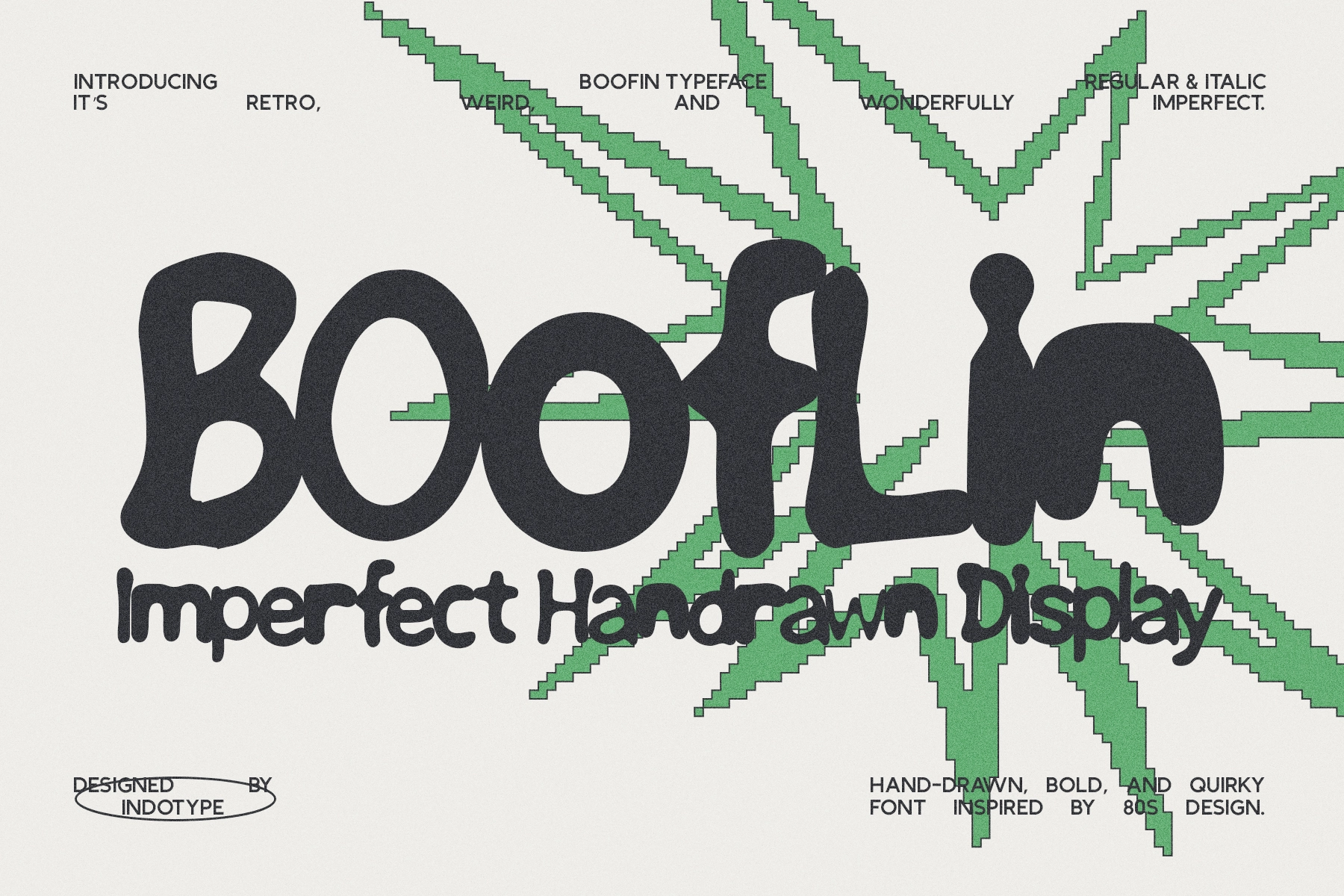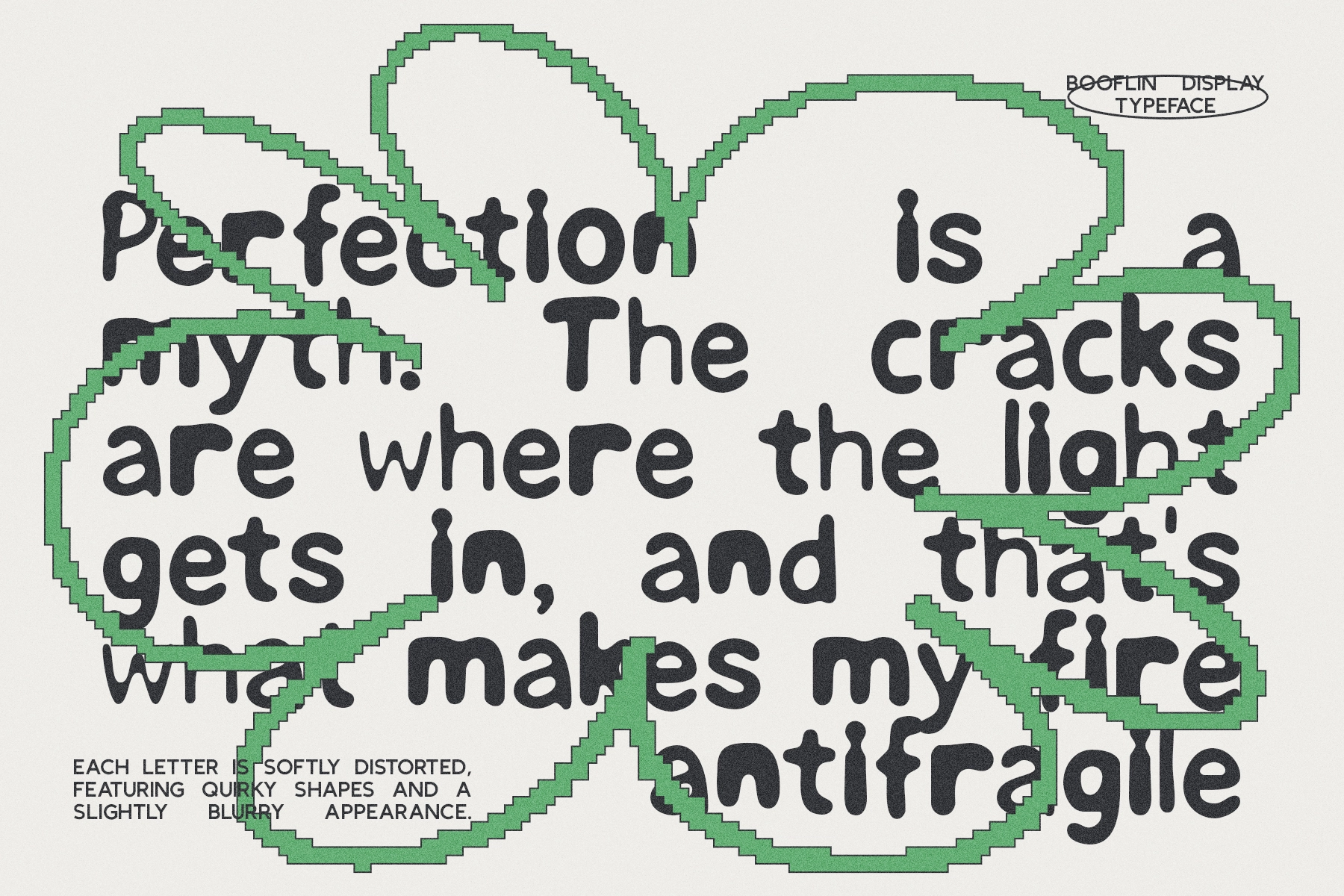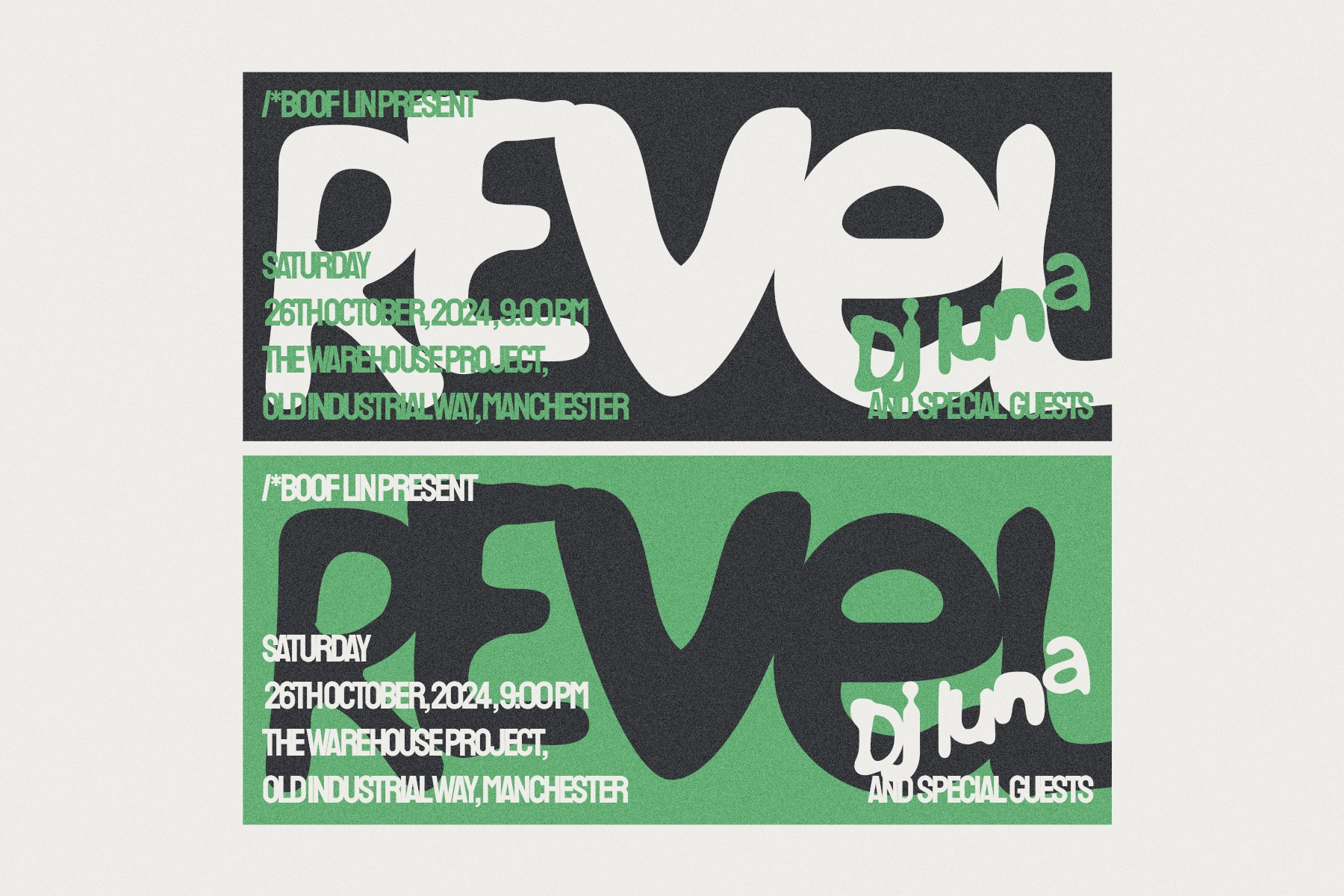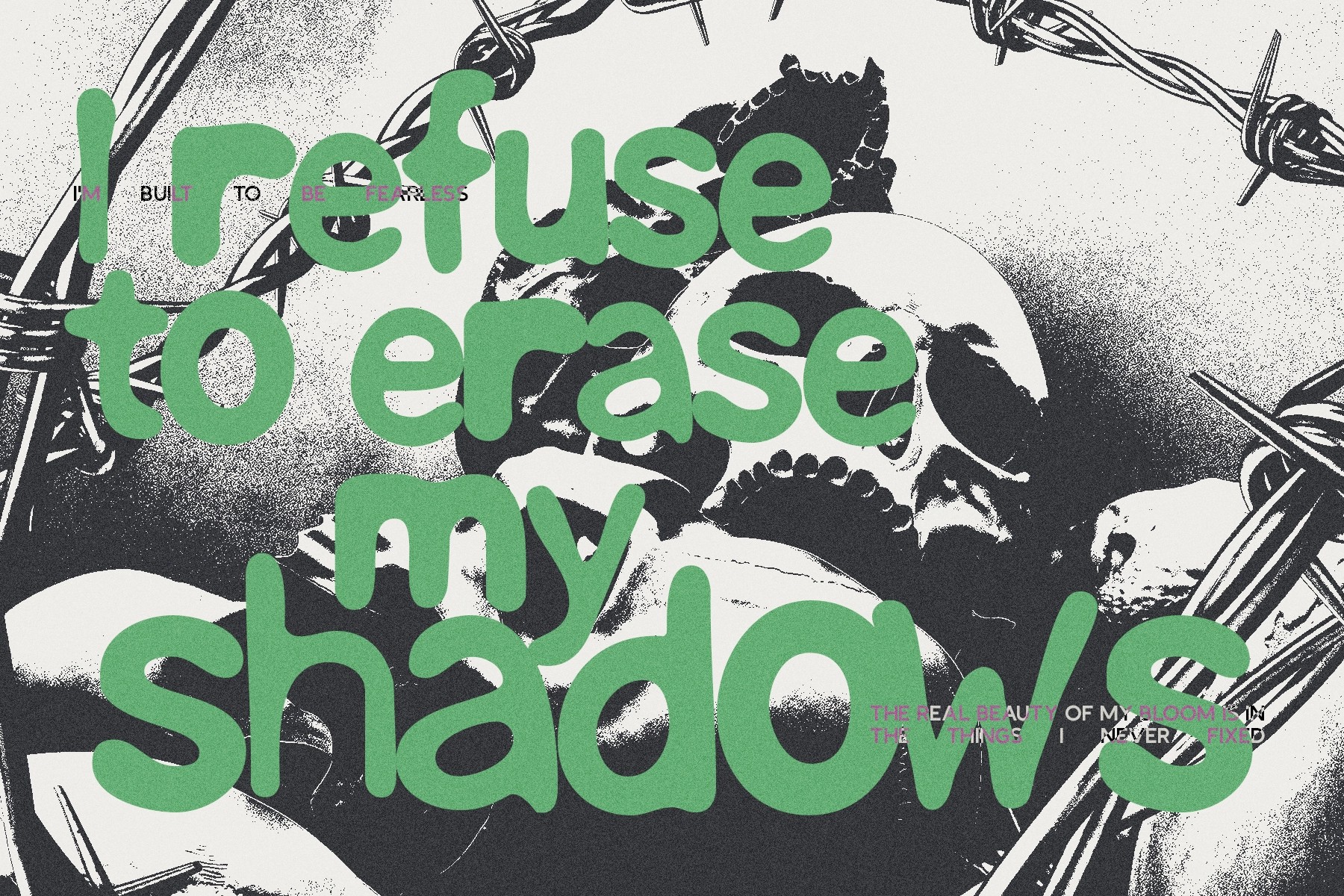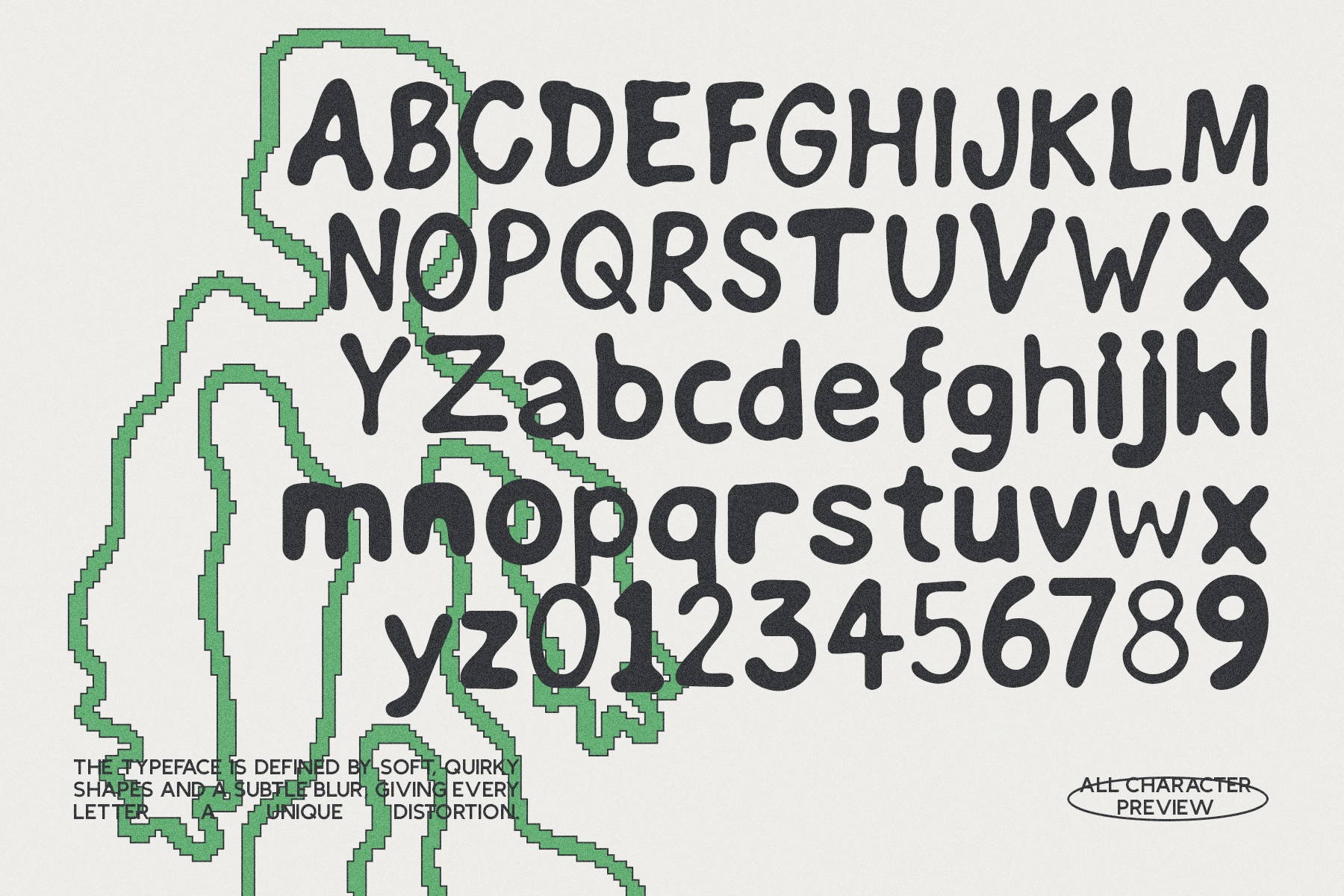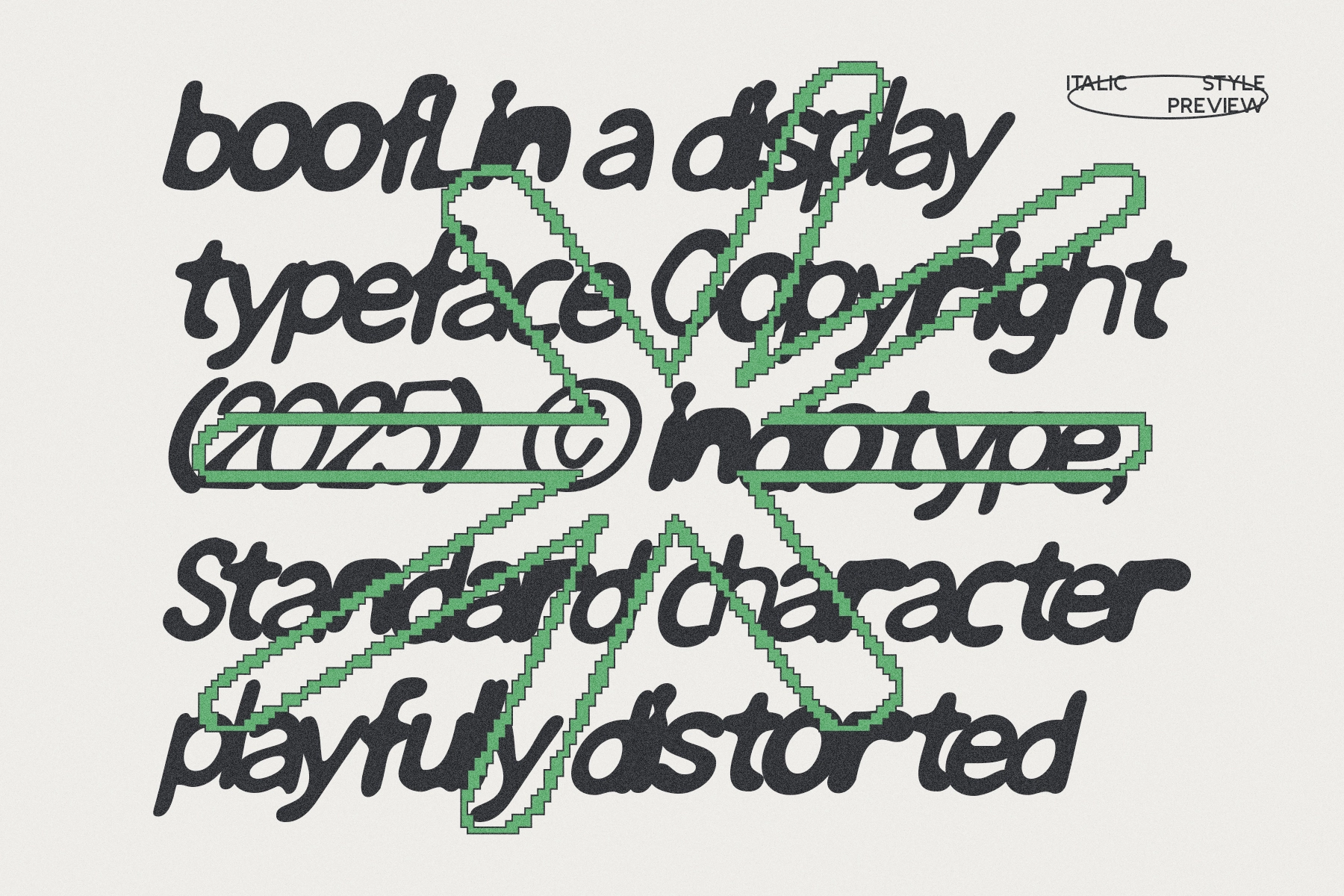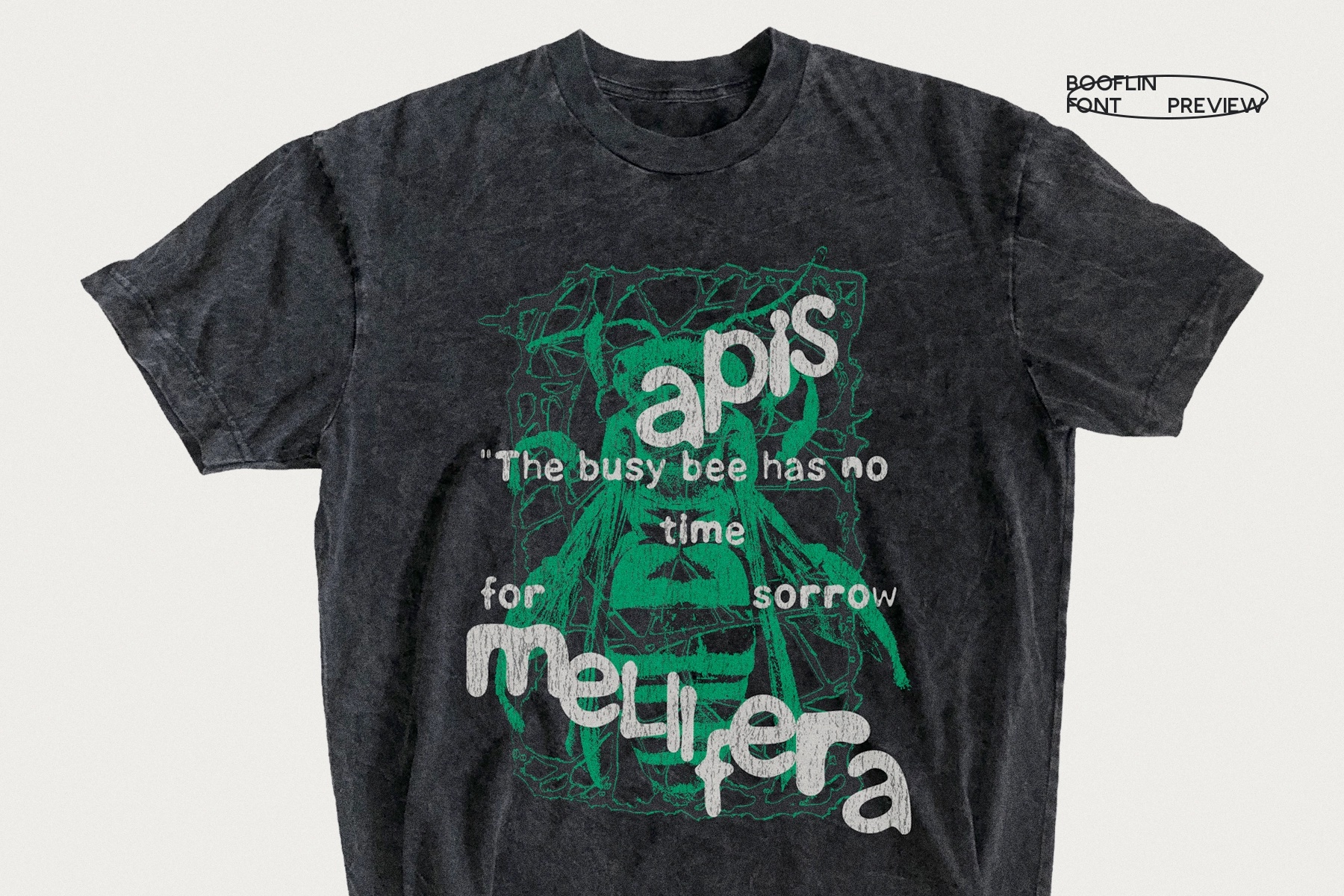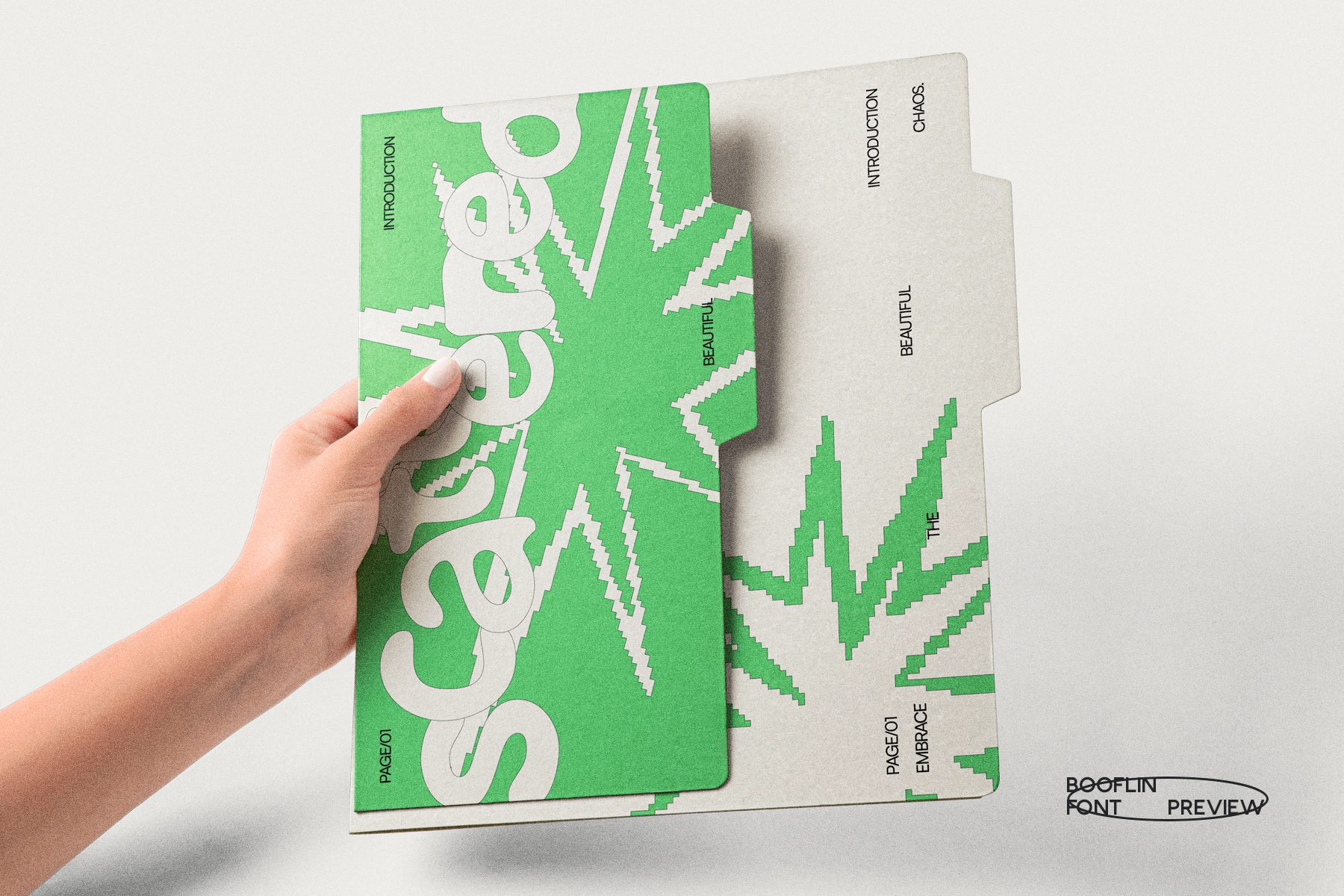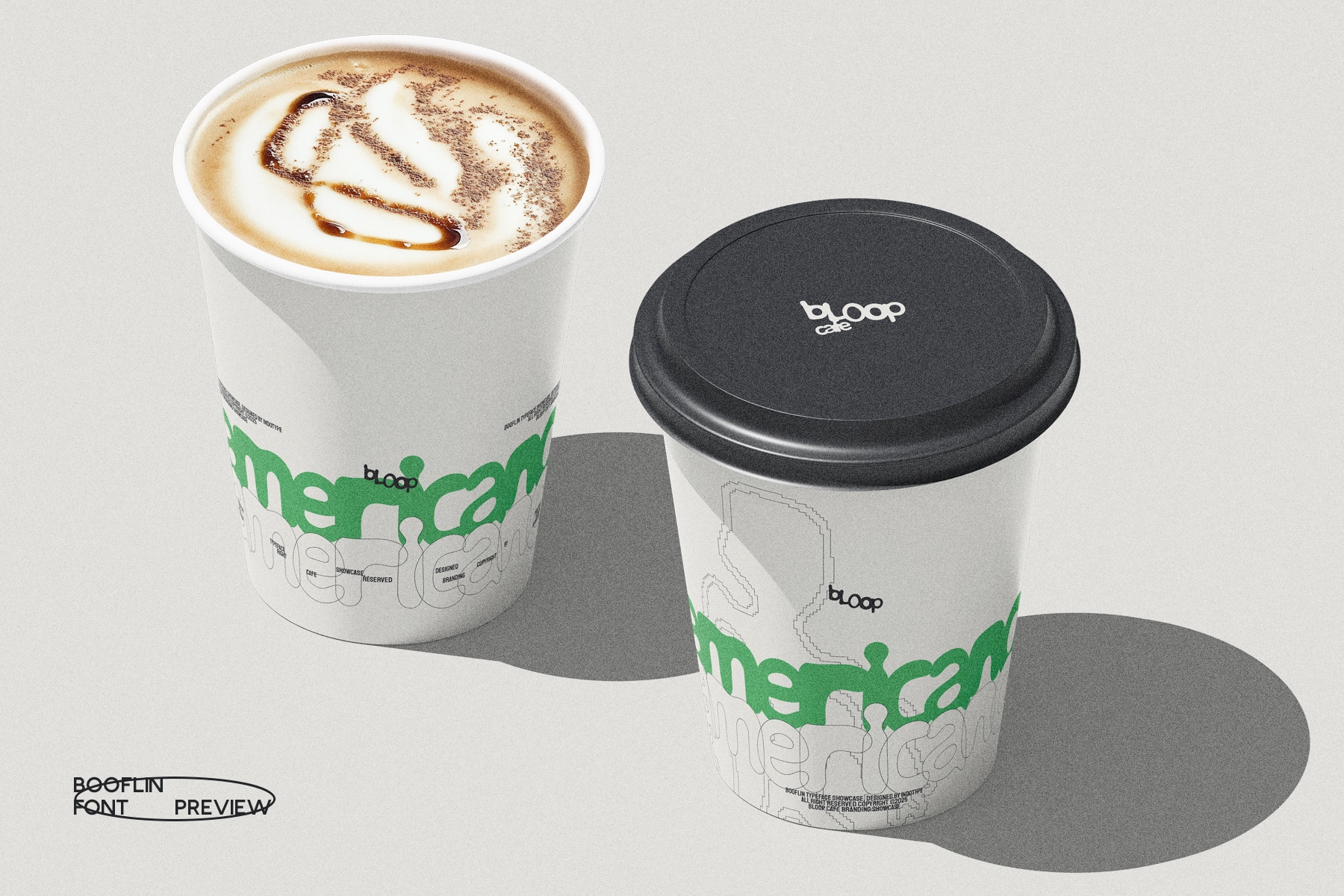
Booflin - Imperfect Hand Drawn Display Font
A hand-drawn display font with chunky shapes, wobbly curves, and a softly distorted finish. Its uneven rhythm, rounded terminals, and 80s-flavored weirdness give headlines a raw, playful voice with plenty of character.
Booflin is made for posters, indie branding, album covers, zines, packaging, merch graphics, editorial titles, social media posts, stickers, event flyers, café menus, children’s projects, and creative campaigns. The italic style adds extra motion for layouts that need a little more chaos — the friendly kind, obviously.
• 2 styles: Regular, Italic
• Numerals